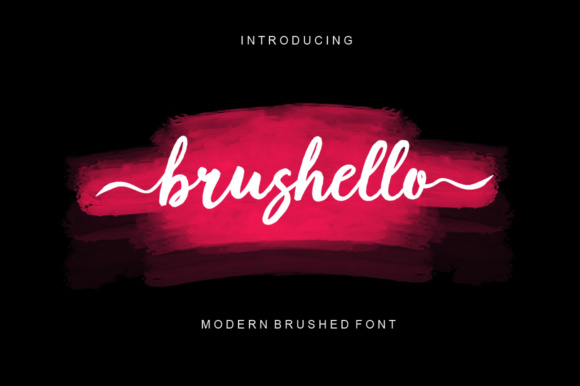
The Brushello Font: A Textured Brush Font with Personality
The Brushello font is a textured brush font that offers a fresh take on natural, handmade designs. With its irregular baselines and contemporary approach, it’s perfect for designers, crafters, and creative hobbyists looking to add a personal touch to their projects.
What I Love About Brushello Font
Here are some things that I absolutely love about the Brushello font:
• ✨ Textured brush feel: The font has a beautiful, organic texture that gives it a handmade feel.
• ✅ Multiple ligatures: The Brushello font comes with several ligatures that add a touch of elegance to your designs.
• ✅ Additional swashes: The font includes extra swashes that allow you to customize your text and make it more visually appealing.
• ✅ Contemporary approach: The Brushello font offers a modern take on traditional brush fonts, making it perfect for a wide range of design projects.
While I love the Brushello font, there are a few quirks to be aware of:
• 🤔 Irregular baselines: The font’s irregular baselines can make it challenging to use in certain design projects, such as those that require precise alignment.
• ⚠️ Limited use in small text sizes: The Brushello font is best used in larger text sizes, as it can become difficult to read in smaller sizes.
The Brushello font was designed with inspiration from traditional brush calligraphy. The font’s creator wanted to capture the organic, handmade feel of brush calligraphy and bring it into the digital age.
What is the Brushello font? The Brushello font is a textured brush font that offers a fresh take on natural, handmade designs.
What design projects is the Brushello font best suited for? The Brushello font is perfect for a wide range of design projects, including branding, packaging, and advertising.